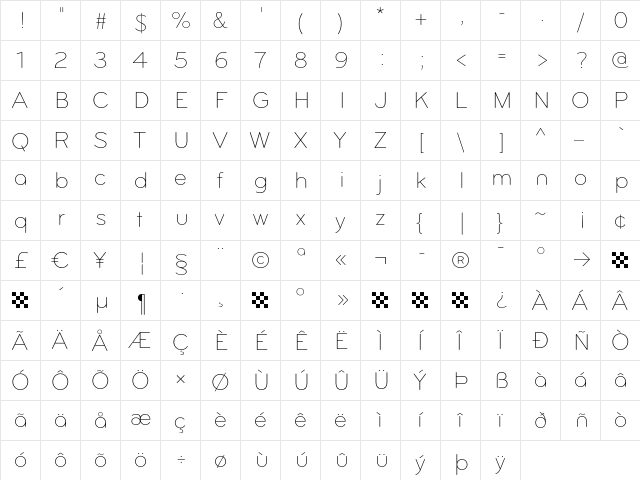
Bryant-LightAlt Regular
Design Context for Bryant-LightAlt Typeface
Bryant-LightAlt is a composed and adaptable typeface that performs quietly and consistently across a wide range of design contexts. The delicate stroke weight brings airiness and refinement to layouts.